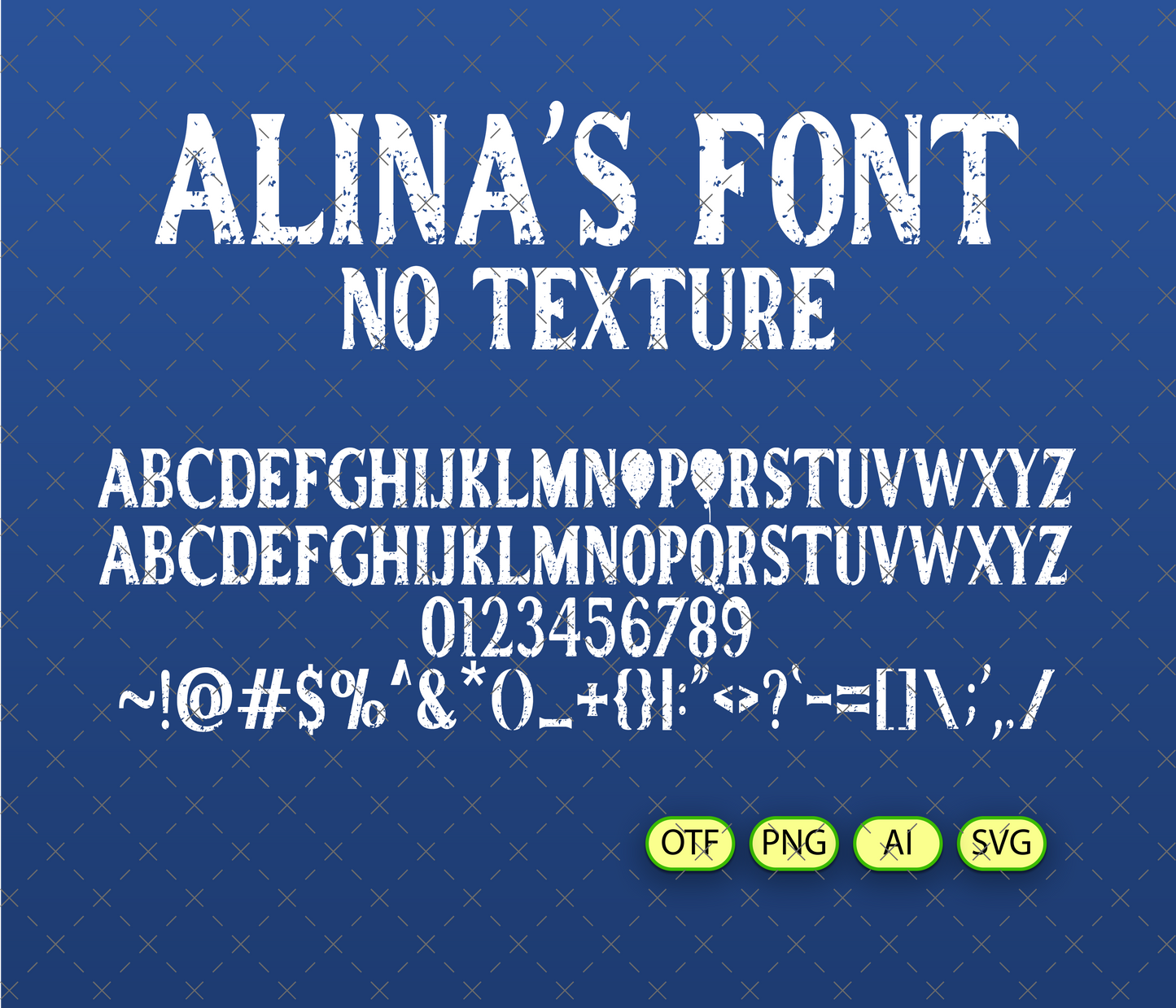
Sinister Town Font: Clean Small City Terror
Step into the chilling world of cursed communities with our Sinister Town font, capturing the essence of haunted neighborhoods and lurking evil beneath suburban facades. Perfect for horror events, thriller themed parties, Stephen King fans, and creative professionals, this font brings the clean, foreboding energy of seemingly normal towns hiding dark secrets to your projects. Create eerie invitations, horror merchandise, or digital content with the minimalist, unsettling spirit of small-town nightmares and cyclical terror.
Our Sinister Town font features clean, slightly distorted letterforms with subtle menacing elements reflecting the minimalist aesthetic of cursed communities and suburban horror. The characters blend everyday typography with underlying dread, creating perfect fusion of normalcy and hidden terror.
- Horror Events: Create unsettling invites, posters, and banners for Halloween parties, horror movie nights, and thriller-themed gatherings
- Dark Fiction Design: Perfect for horror book covers, thriller promotions, and haunted town party accessories that capture suburban dread
- Digital Media: Enhance websites, blogs, and social media with foreboding headers and graphics that express small-town terror and hidden evil
- Entertainment Content: Add authentic character to horror materials, thriller designs, and promotional materials for scary storytelling events
- Personal Projects: Bring sinister town atmosphere to scrapbooking, DIY crafts, and home decor inspired by the aesthetics of cursed communities